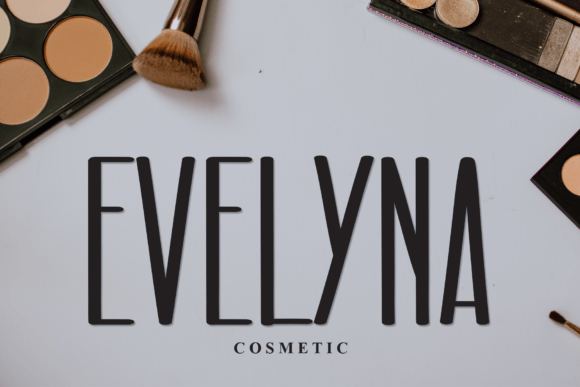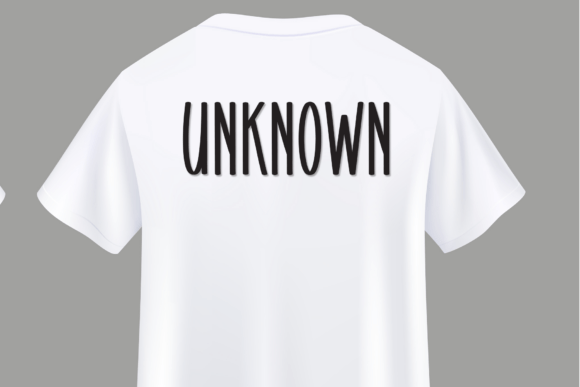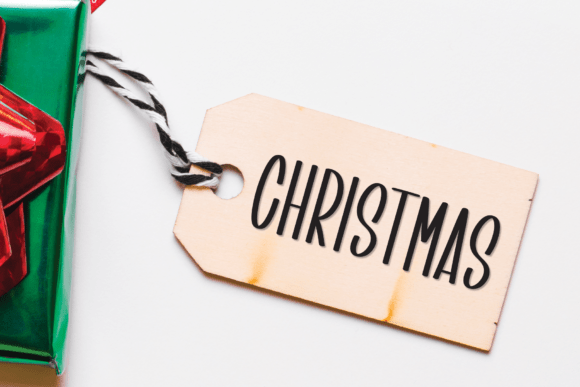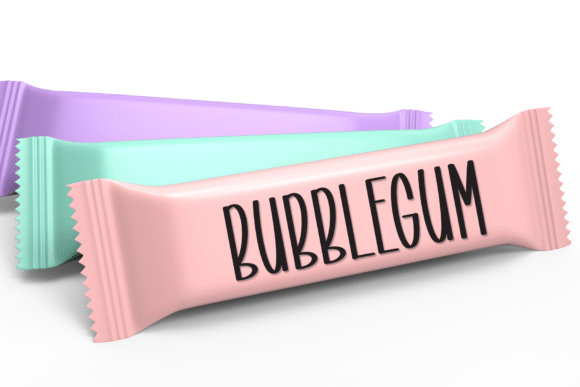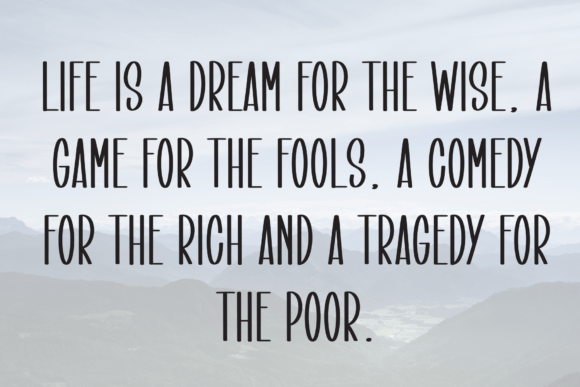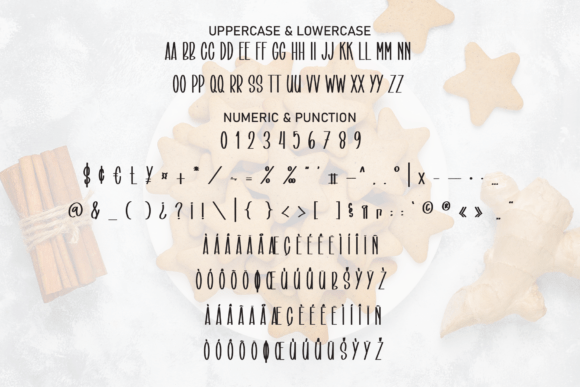
Introduction to Biscuit Gingerbread Font
Immerse yourself in the delicate elegance of a typeface that beautifully melds sophistication with a friendly disposition – Discover the captivating charm of this handcrafted font, exuding an authentic, personal touch that breathes life into your creative expressions.
This font gracefully dances on the intriguing line between fanciful and earnest, infusing a gentle happiness into artistic creations like enchanting wedding invites or vibrant greeting cards Want to infuse your designs with a hint of joy.
Key Features of Biscuit Gingerbread Font